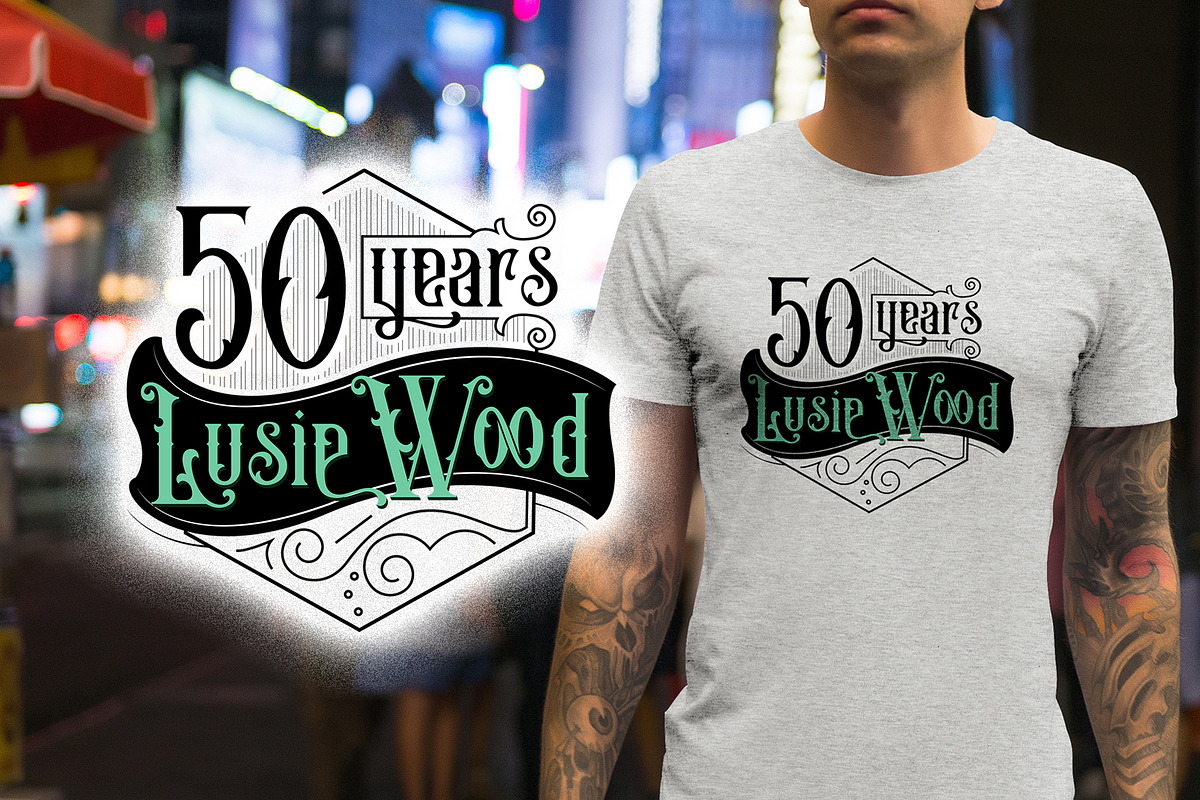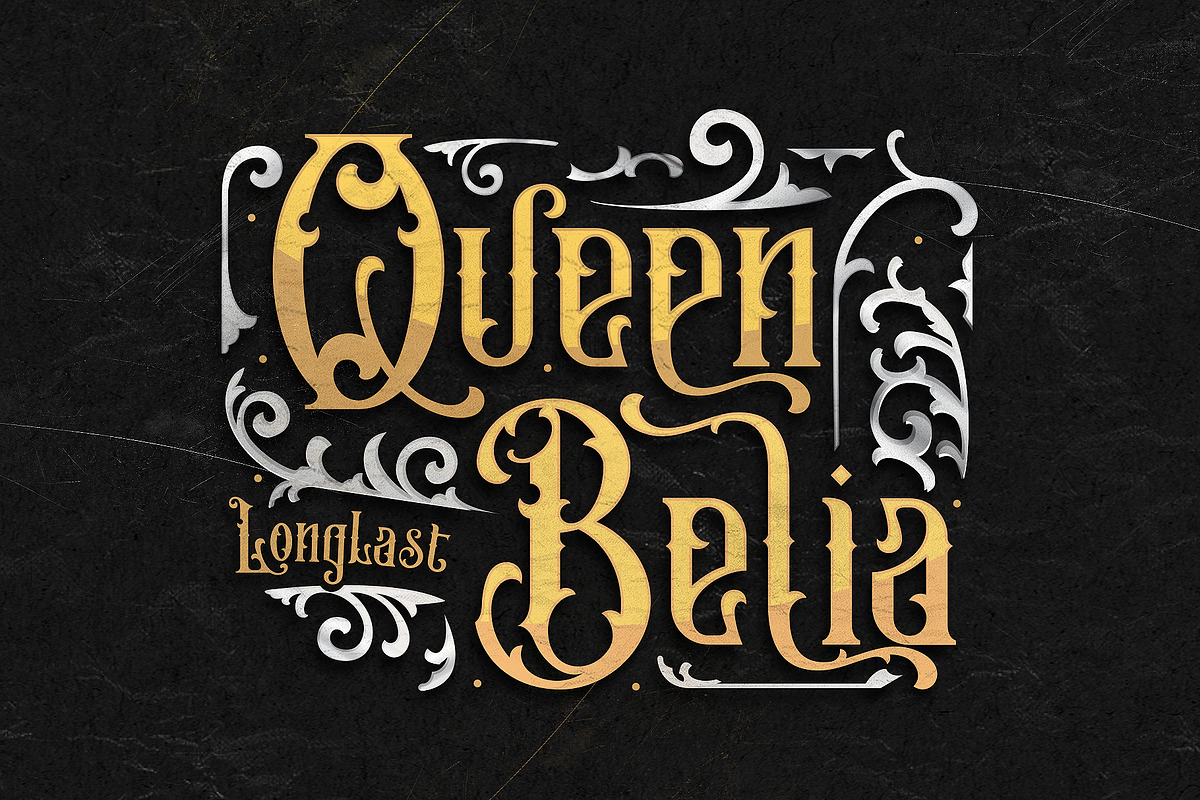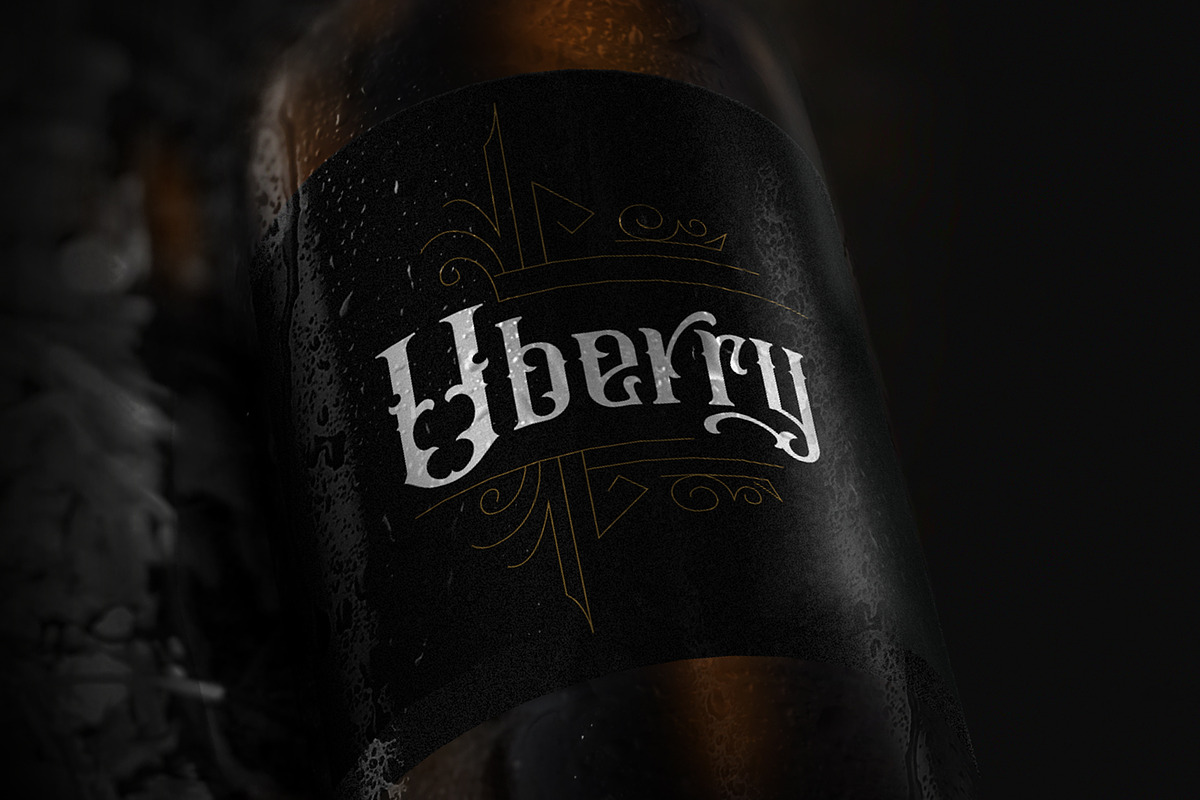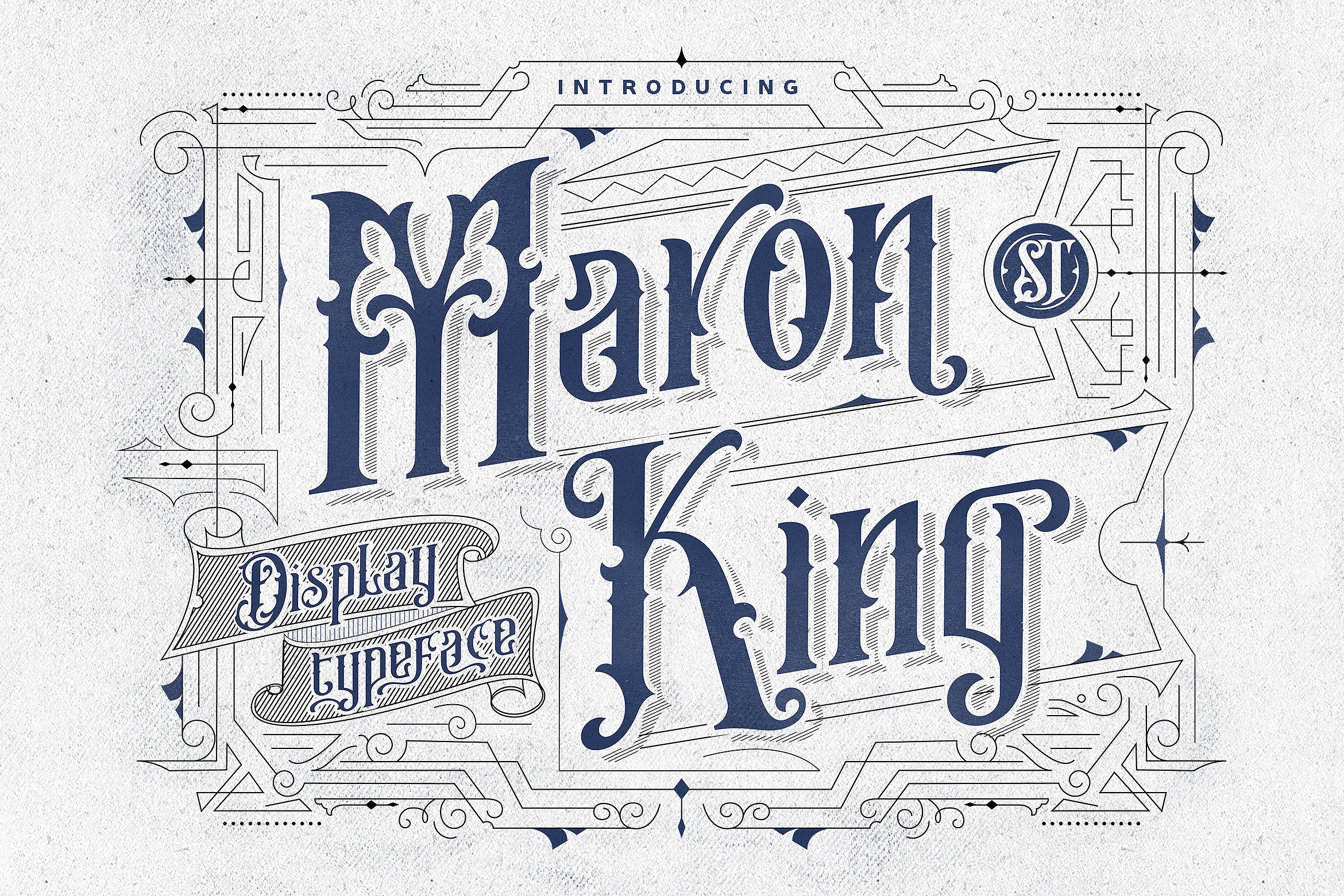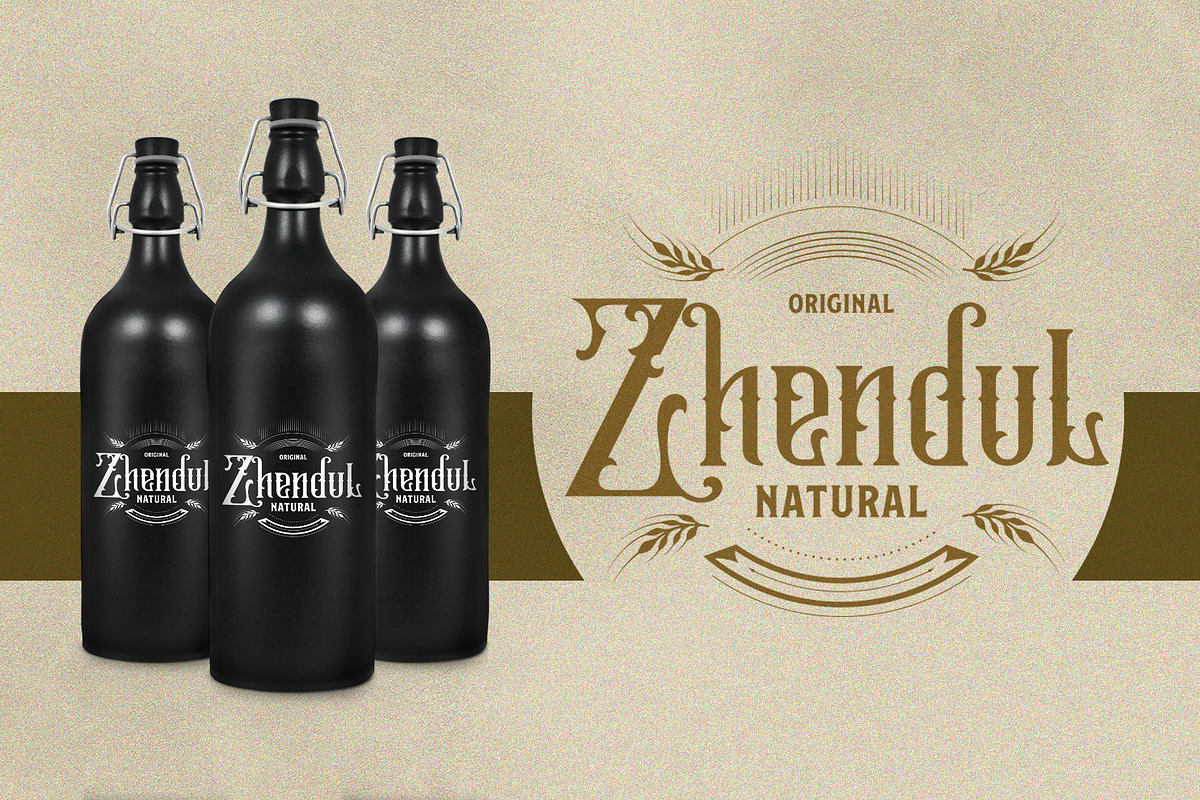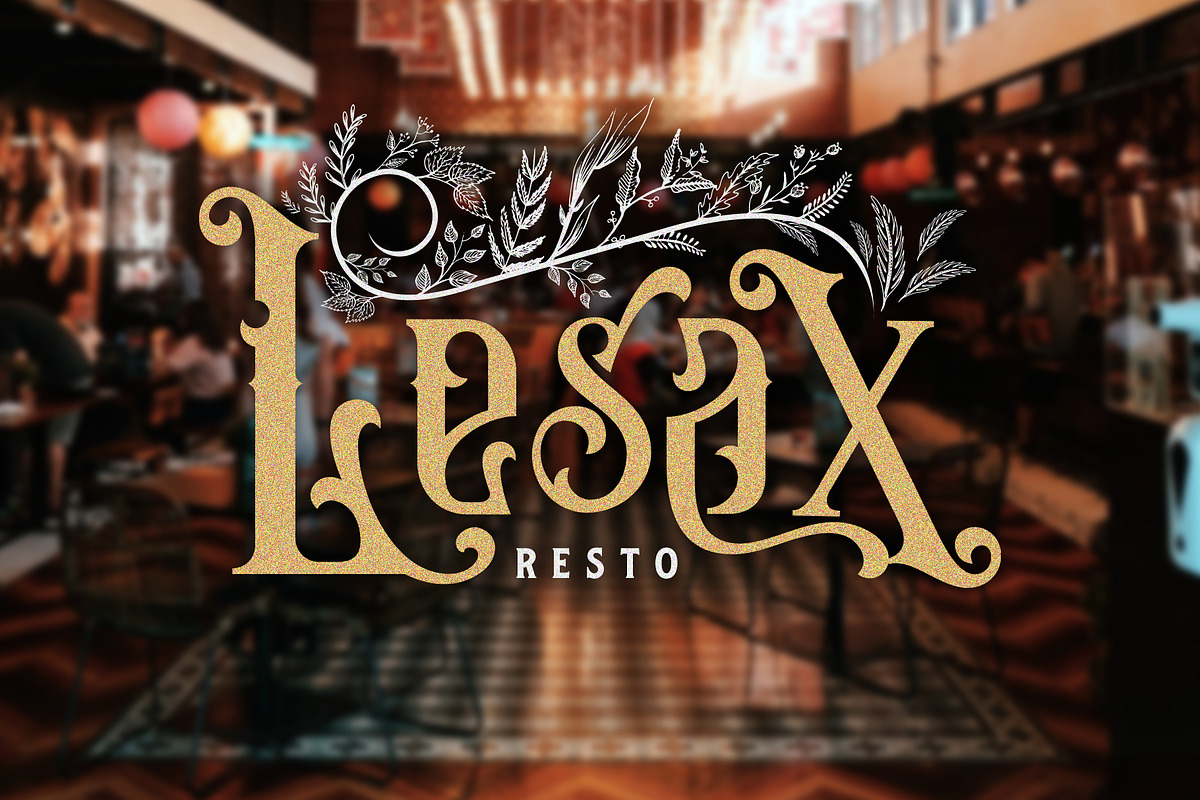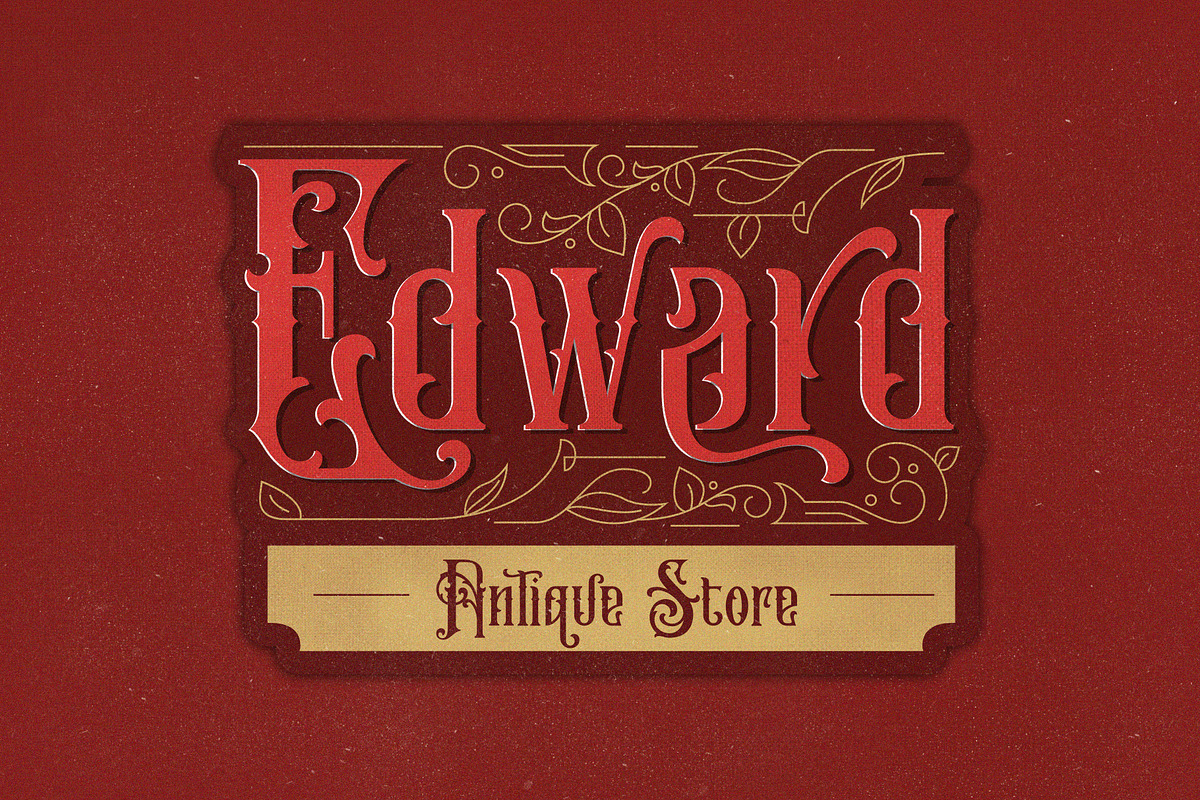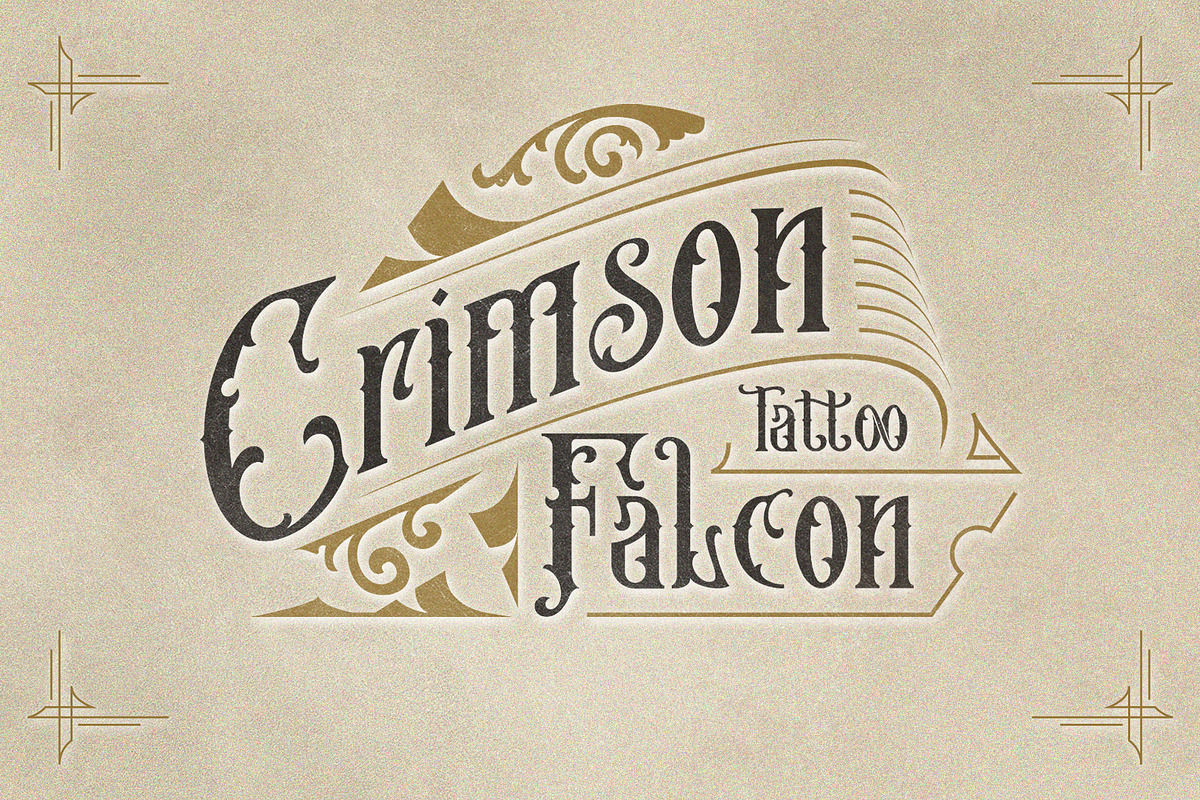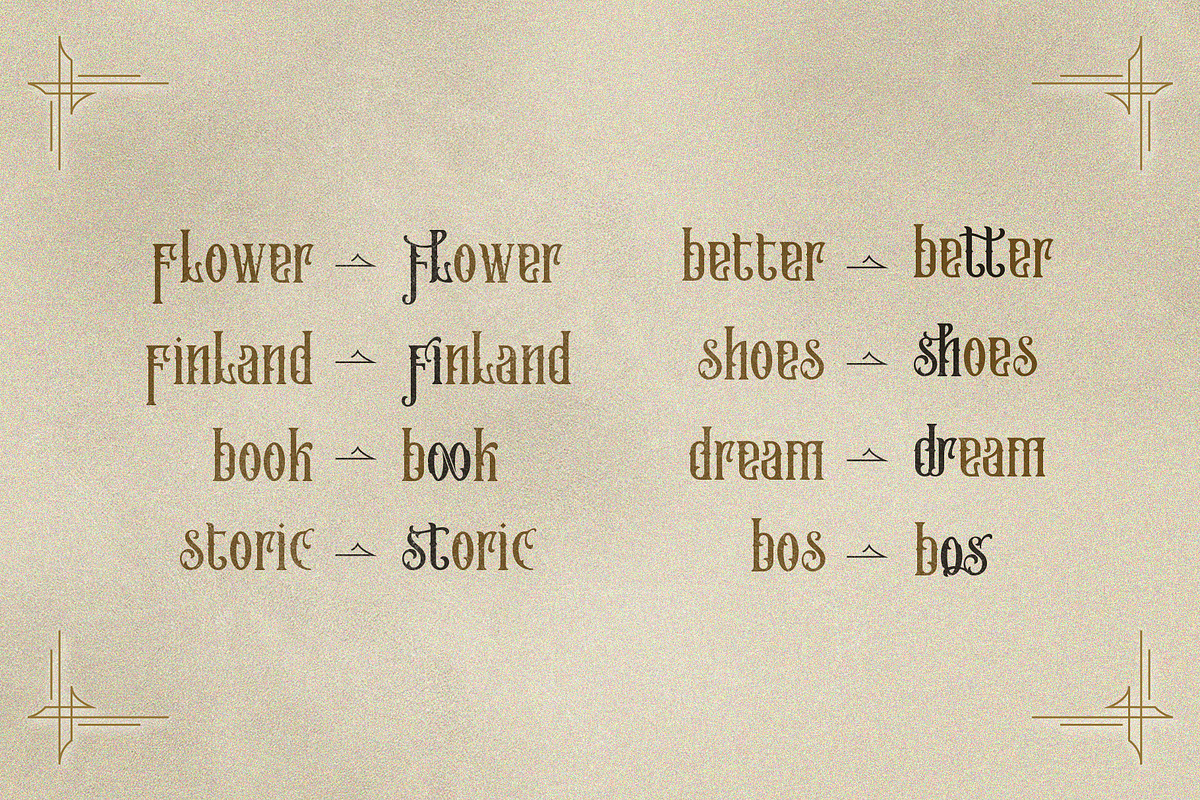
Maron King | Victorian Display Font
Introducing new display typeface its called Maron King
Inspired by victorian style with classic style .OpenType features some characters that allows you to mix and match pairs of letters to fit in your designs. It’s an all caps typeface, with strong and sleek letters.
offering an infinite opportunity to customise and create logos, headlines, titling, product packaging, labeling, logo, classic shop, badges, movie title, t-shirt, posters, label, greetingcard, letterhead, book cover, etc.